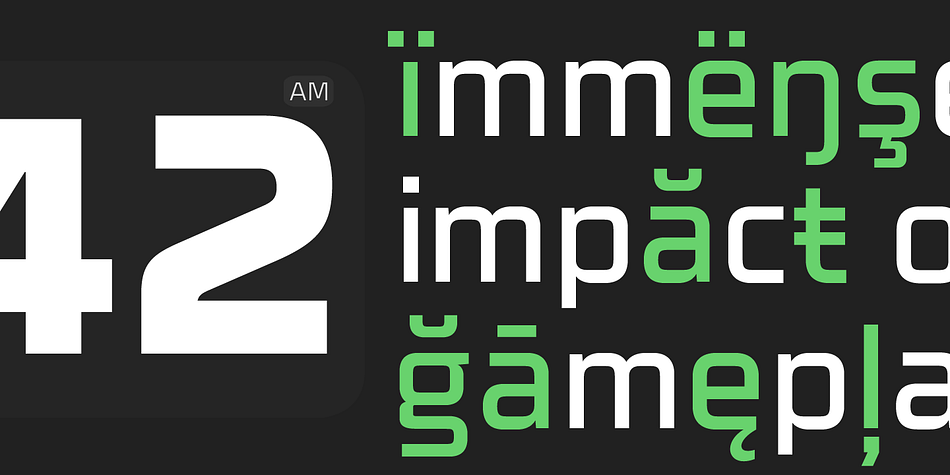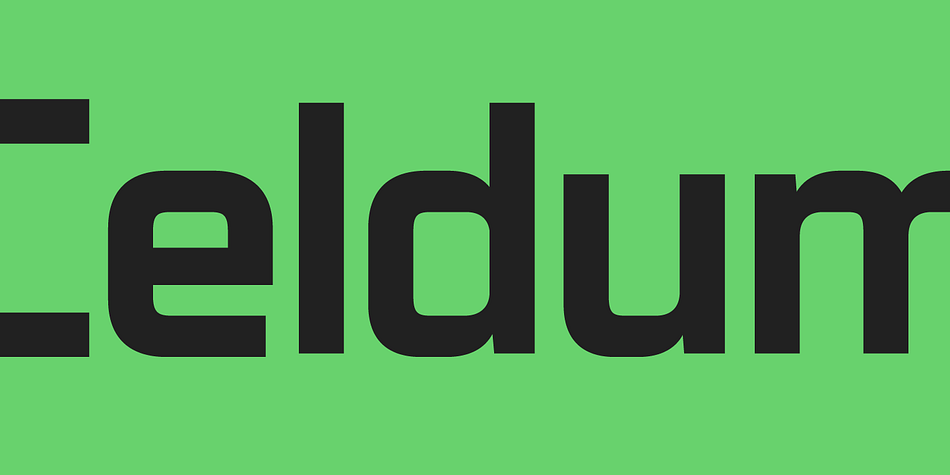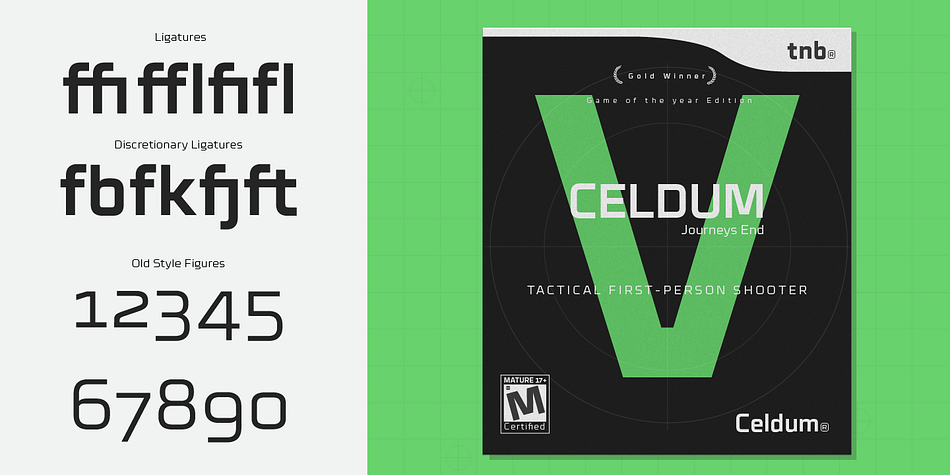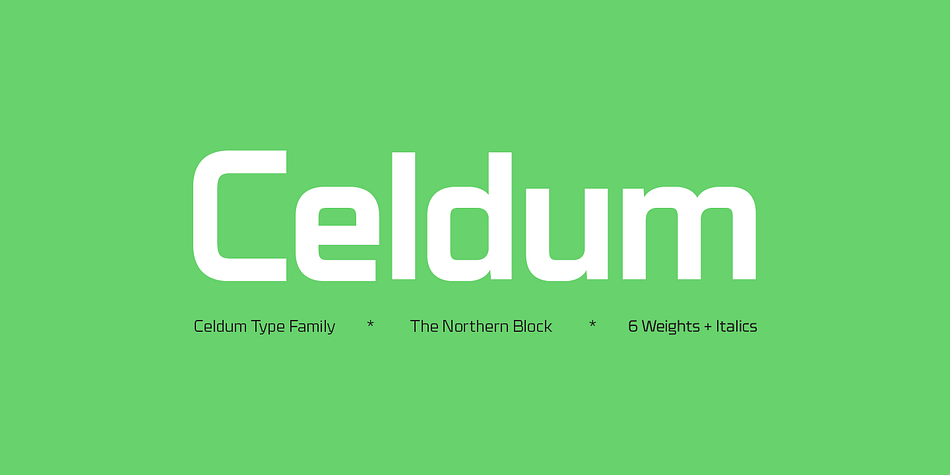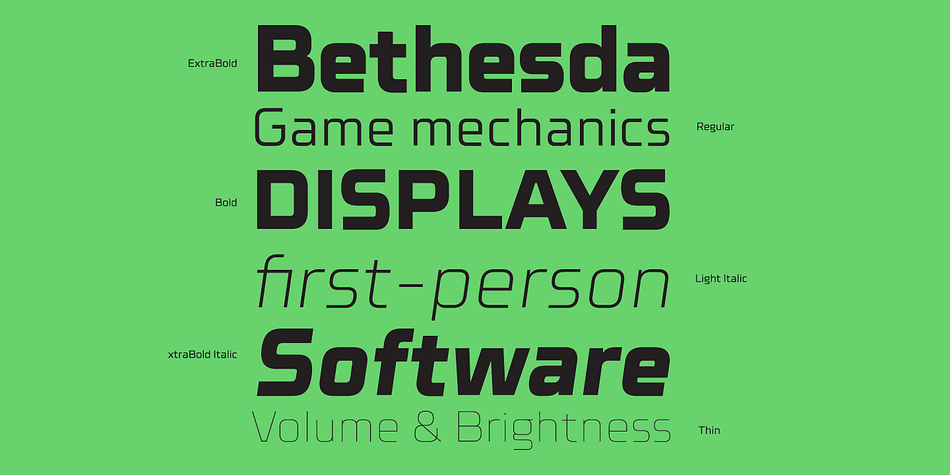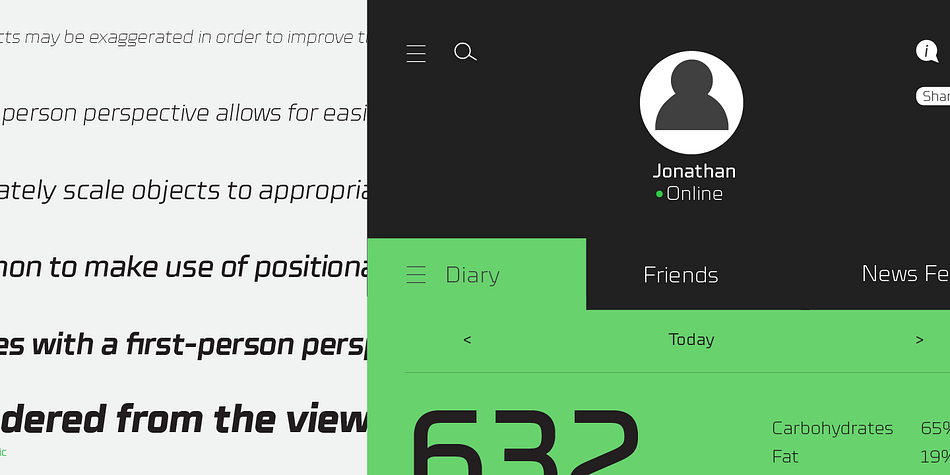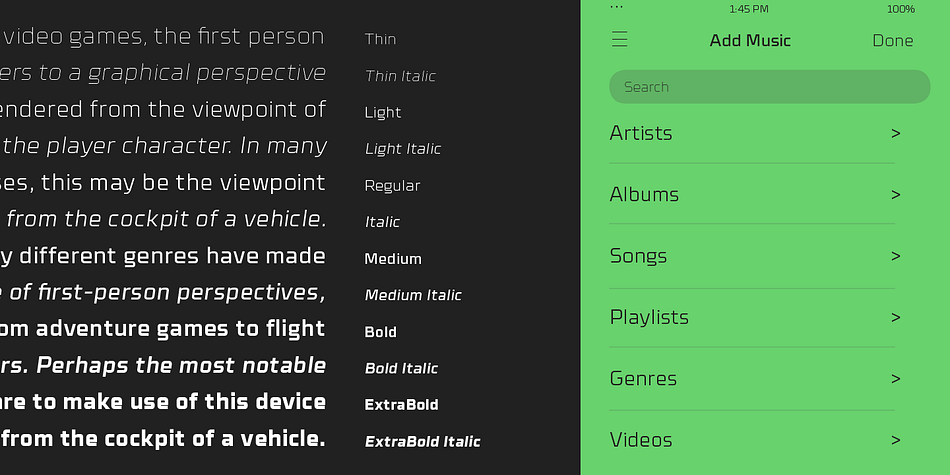
Designed by Jonathan Hill, Celdum is a sans serif font family. This typeface has twelve styles and was published by The Northern Block.
Celdum, a modern geometric type family, constructed from a rectangular grid. Smooth, precise curves meet horizontal and vertical lines to create a monoline design with no apparent contrast.
Each letter shape has unique subtleties creating a purposeful type family suited to text and branding scenarios within mobile applications, video games and other interactive software.
Details include six weights with italics, 460 characters, five variations of numerals, manually edited kerning and Opentype features.